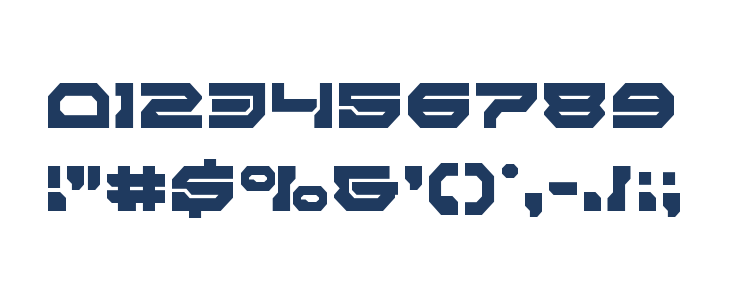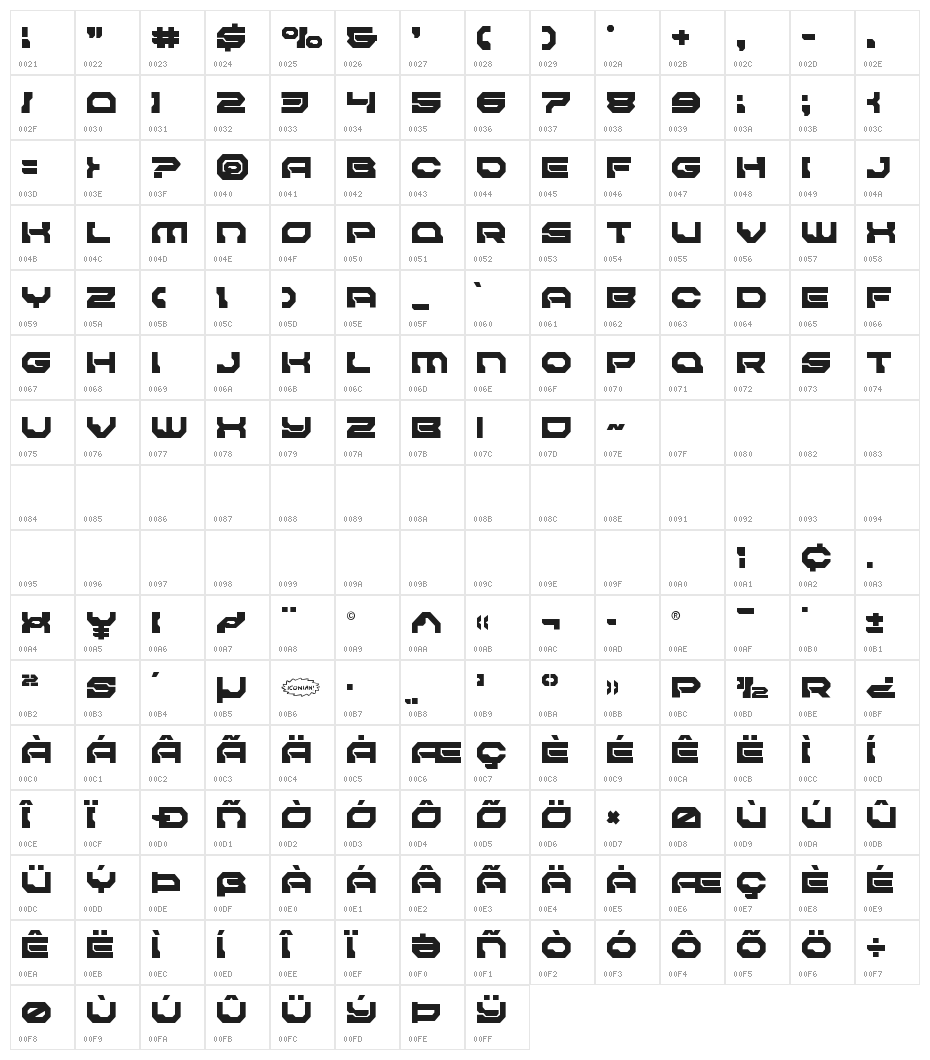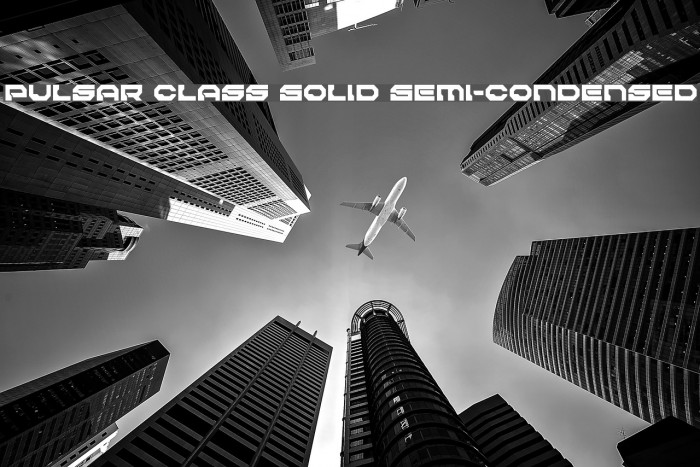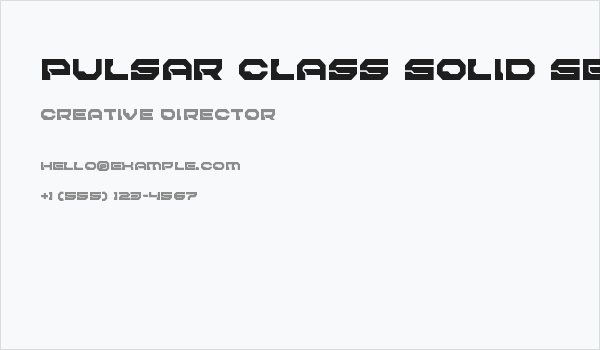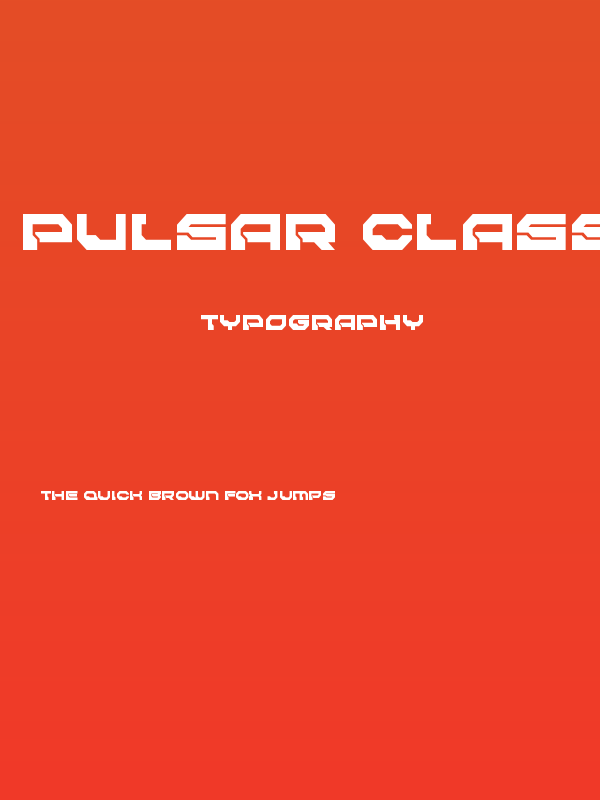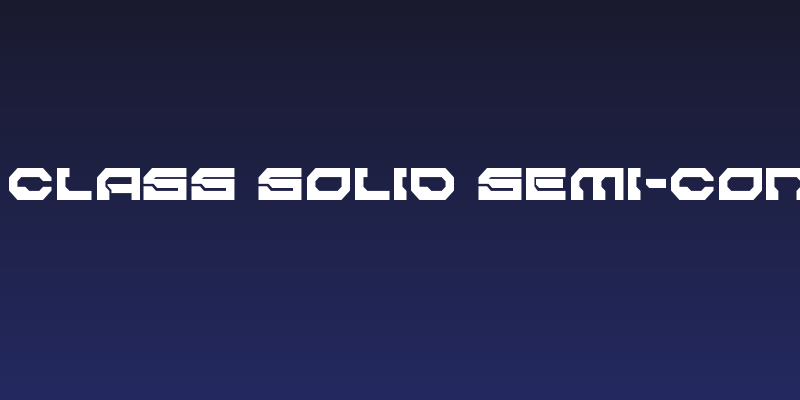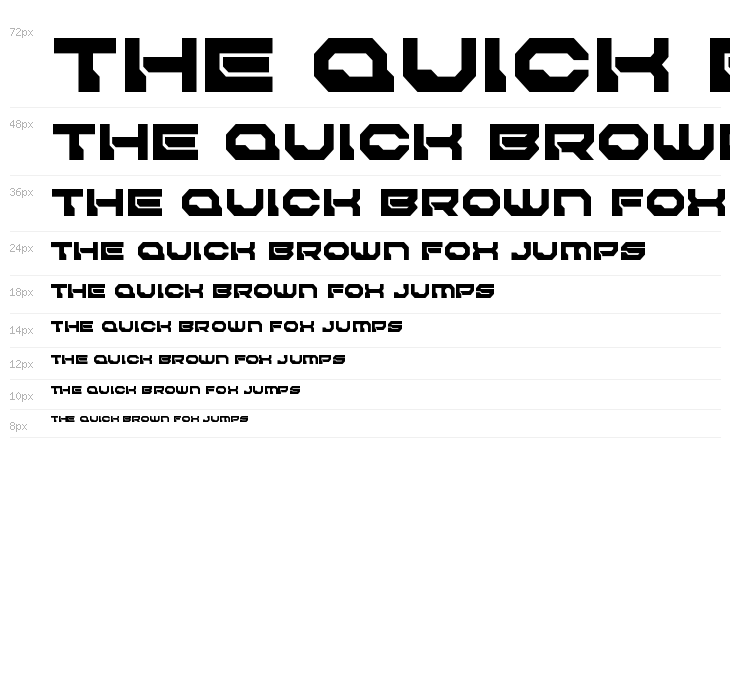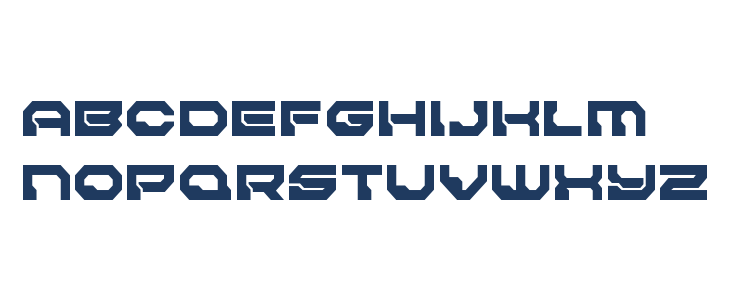
Pulsar Class Solid Semi-Condensed Font
Pulsar Class Solid Semi-Condensed Description
This font features a bold, futuristic design with a solid, semi-condensed structure. The characters are angular and geometric, giving it a distinct, modern appearance. The uppercase and lowercase letters maintain a consistent style, with sharp edges and a blocky form. The numerals and special characters follow the same design principles, ensuring uniformity across all glyphs. This font's unique style makes it ideal for projects that require a strong, impactful visual presence.
| Proposed Projects | Ideal for sci-fi themed designs, video game graphics, technology branding, and futuristic posters. |